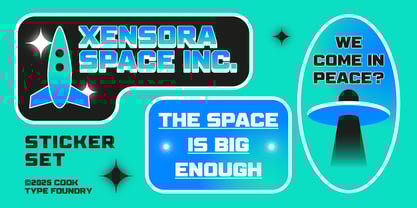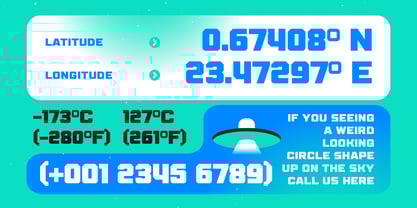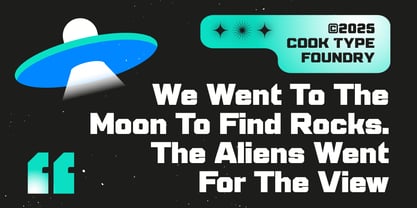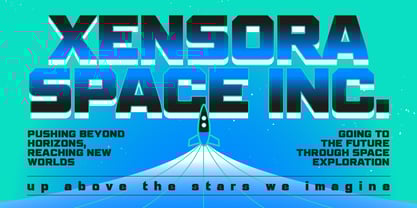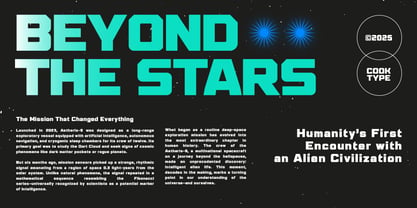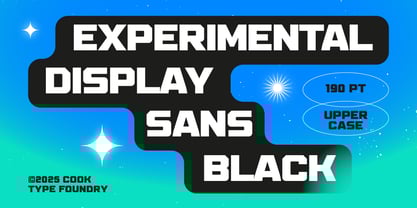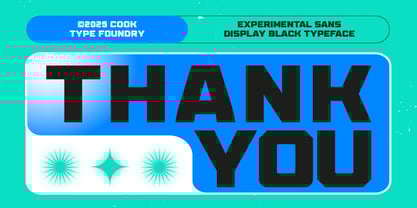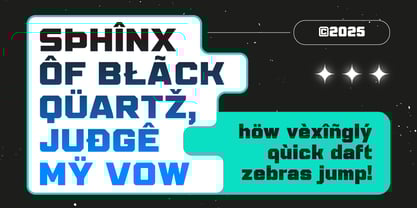
Cook Xensora
by Graphicook Studio
The Cook Xensora Font Family was designed by Gumilar Febriansyah and published by Graphicook Studio. Cook Xensora contains 1 styles. More about this family
Xensora is an experimental font with bold, firm letterforms and a futuristic tone. It’s perfect for cyberpunk themes or technology branding. It is perfect for headlines, logotypes, magazines, packaging, quotes, movies, games, cover albums, book covers, and flyers, it's a perfect solution for creating eye-catching designs that stand out in any context.
Designers: Gumilar Febriansyah
Foundry: Graphicook Studio